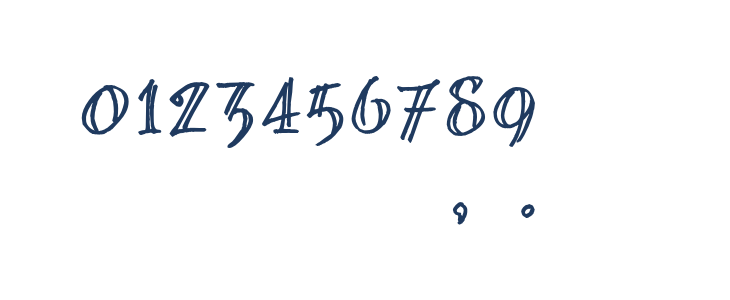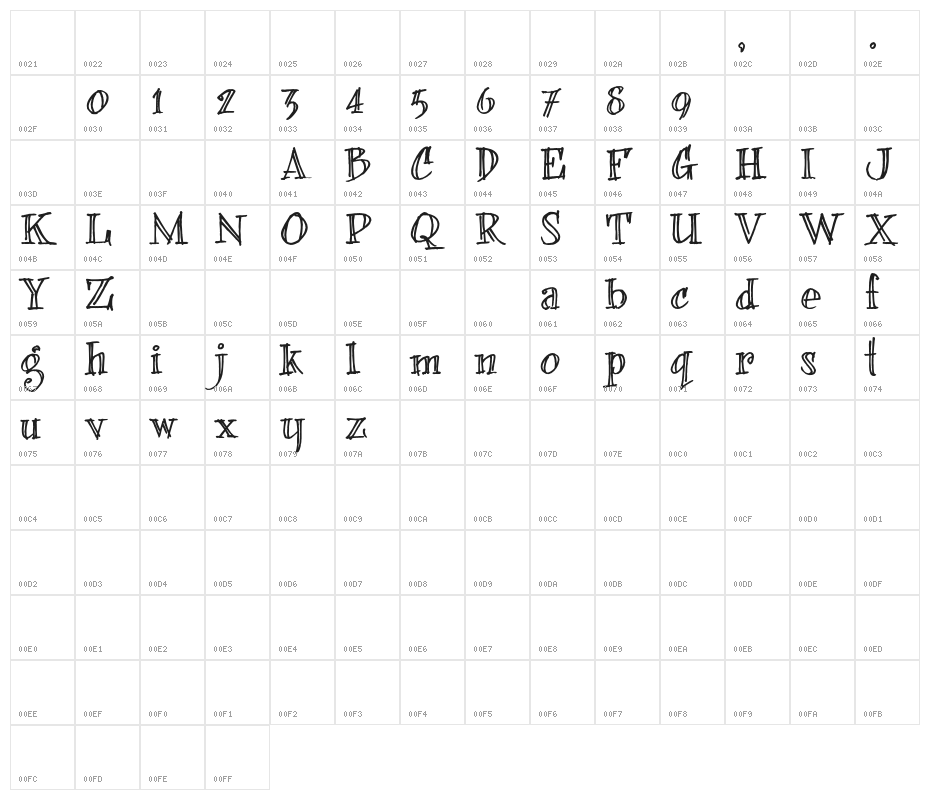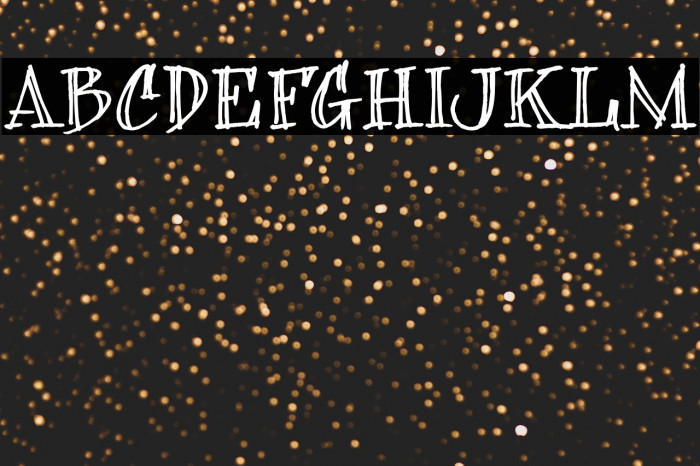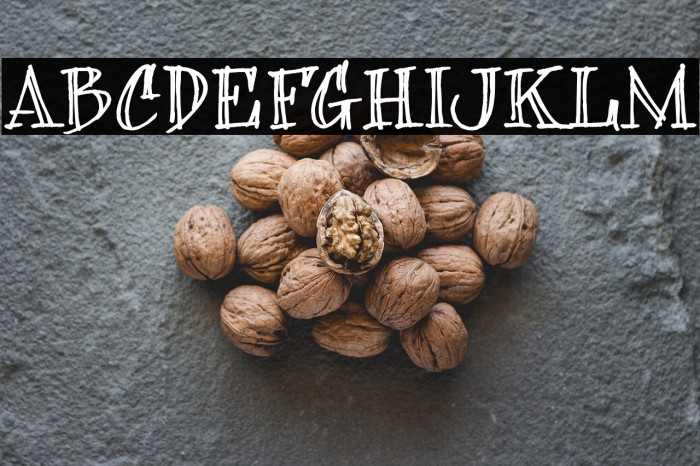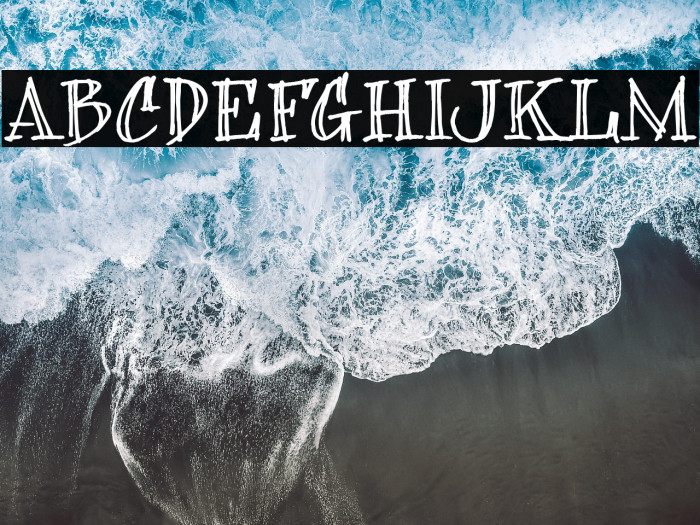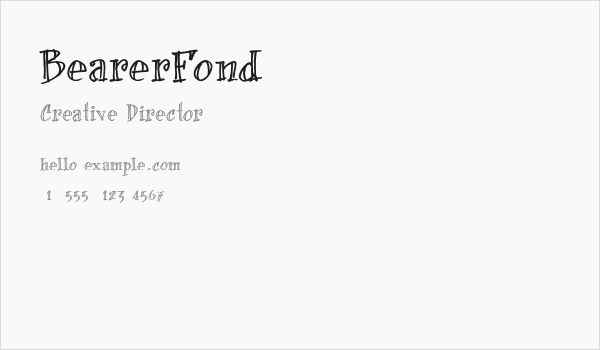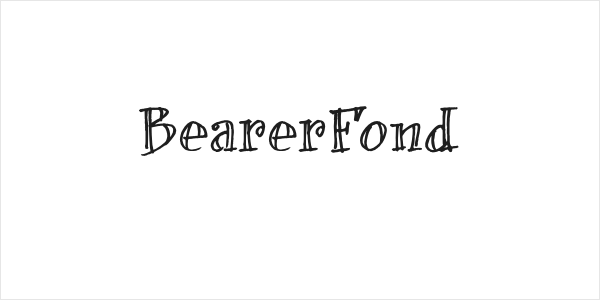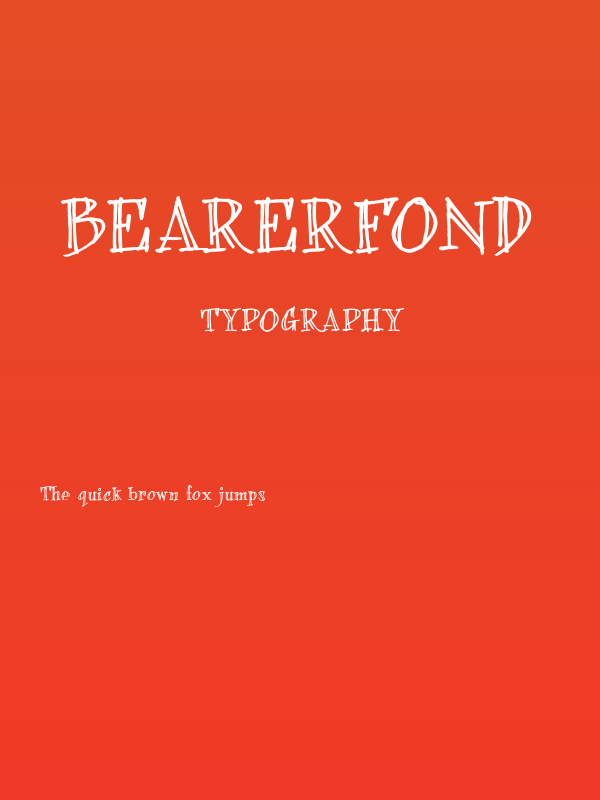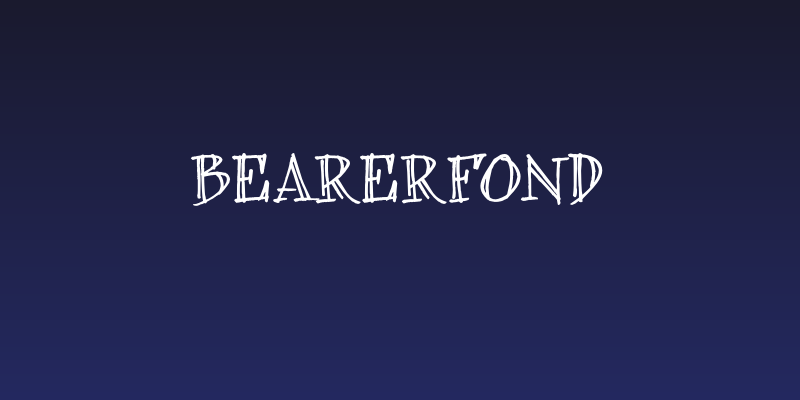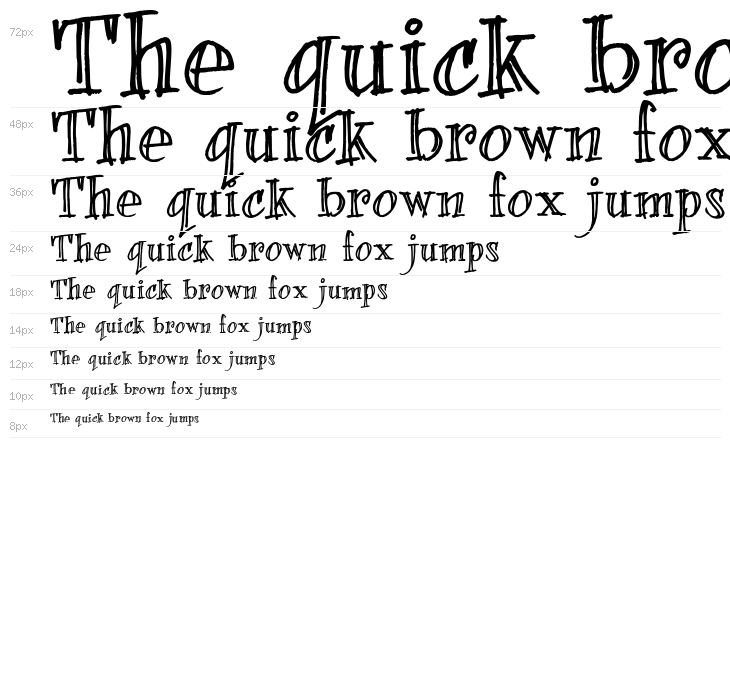
BearerFond Font
BearerFond Description
This font features a distinctive, hand-drawn appearance with uneven strokes and a playful, artistic flair. The characters are slightly irregular, giving them a whimsical and dynamic look. The uppercase letters are bold and prominent, while the lowercase letters maintain a consistent style with unique flourishes. The numbers are equally expressive, with a quirky charm that matches the overall aesthetic. This font includes a variety of special characters, each designed with the same creative touch. The style is reminiscent of artistic handwriting, making it suitable for projects that require a personal and creative touch.
| Use Case | Headlines, Logos, Artistic projects |
| Proposed Projects | Ideal for creative projects such as greeting cards, posters, children's books, and artistic branding. |